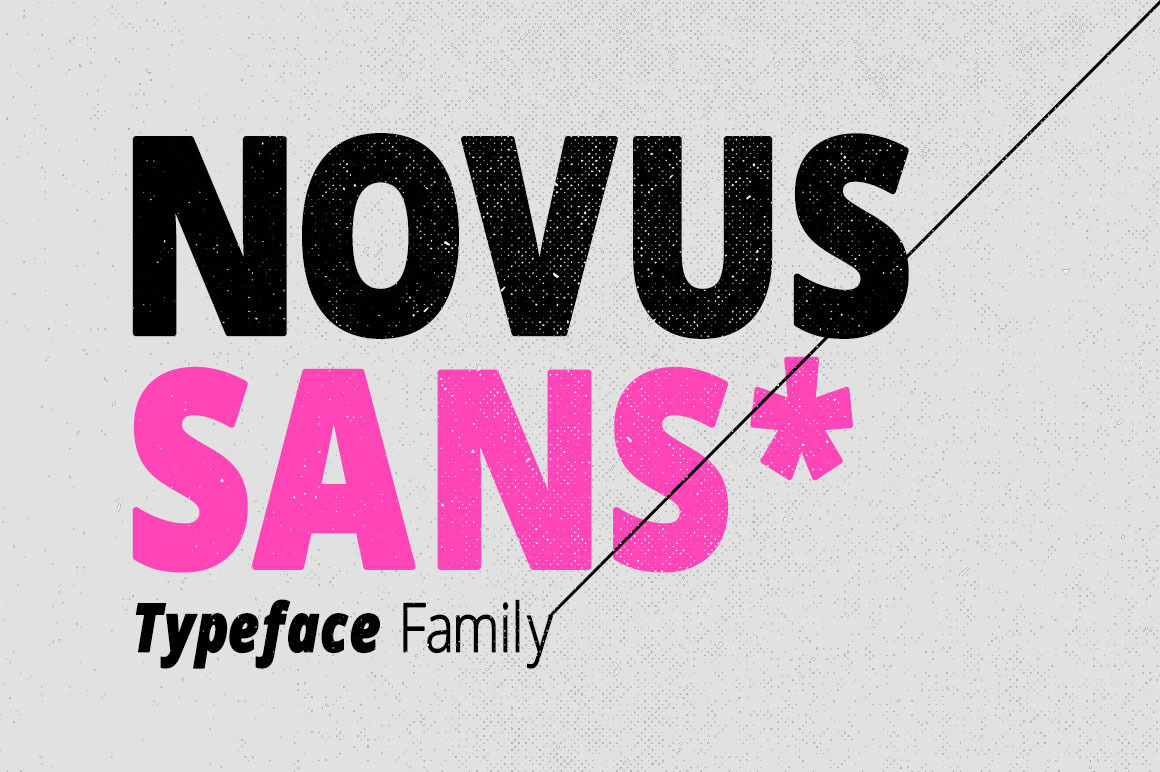
Novus Sans Typeface Family
Novus Sans is a modern font designed to be easy to read. This font comes in 6 weights, Regular / Regular Italic, Light / Light Italic and Bold / Bold Italic. Novus Sans has 6 sets of alphabets in uppercase and lowercase. All 6 fonts are multilingual. This font can be used for creating magazines, broshures, logos and many more.